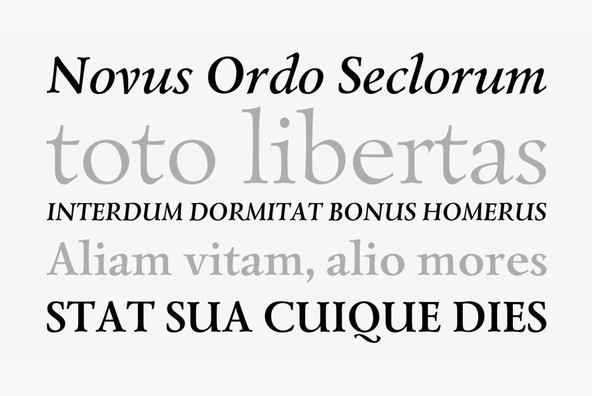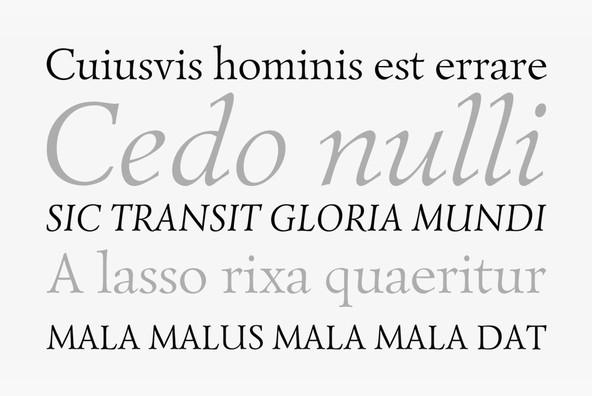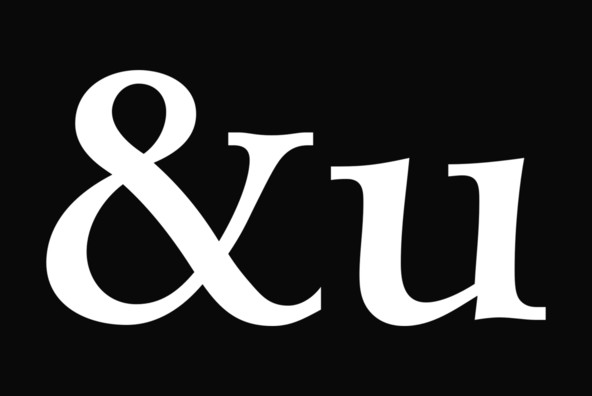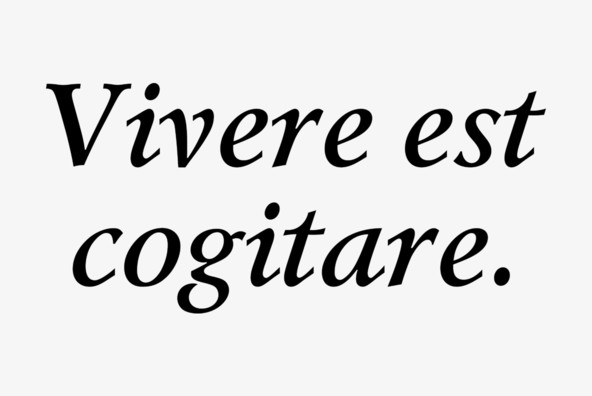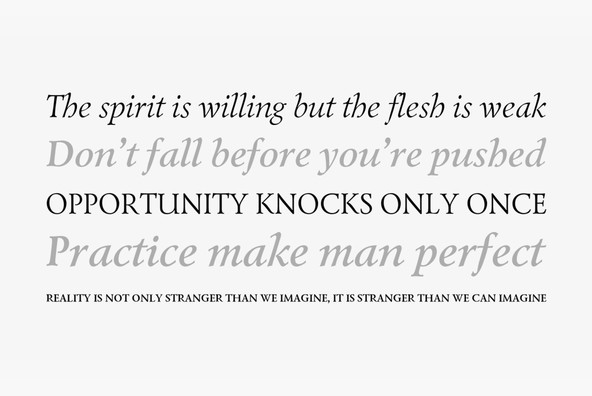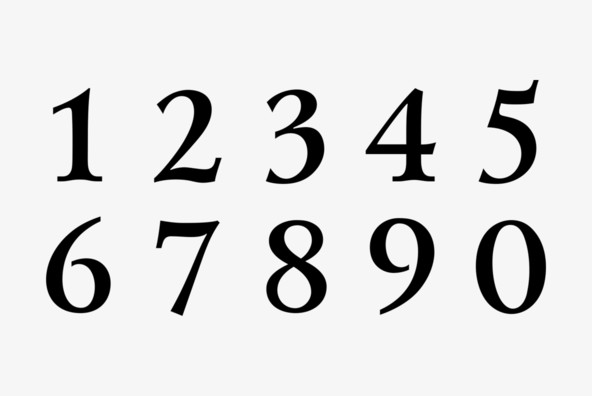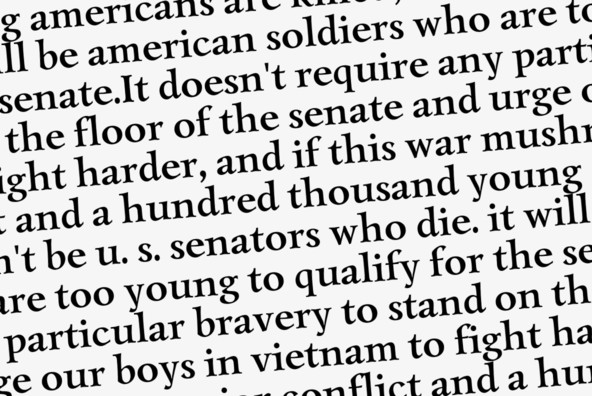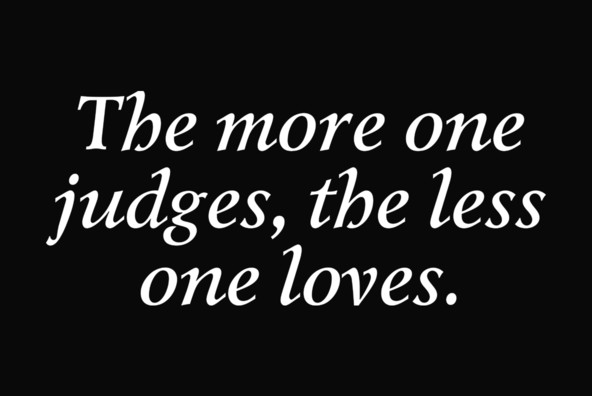
Lazurski
Designed at Polygraphmash type design bureau in 1984 by Vladimir Yefimov, with the addition of demi and demi italic. Based on a hot-metal typeface (1962) by Moscow book designer Vadim Lazurski (1909–1994), inspired by the early 16th century typefaces of Italian Renaissance. The typeface is useful for text and display composition, in fiction and art books. An 'expert set' was added by ParaType (ParaGraph) in 1997.